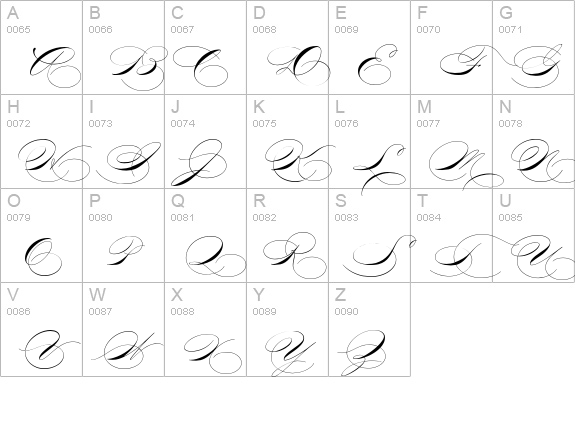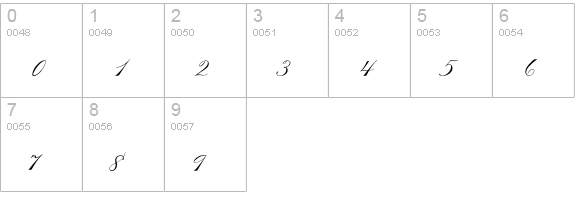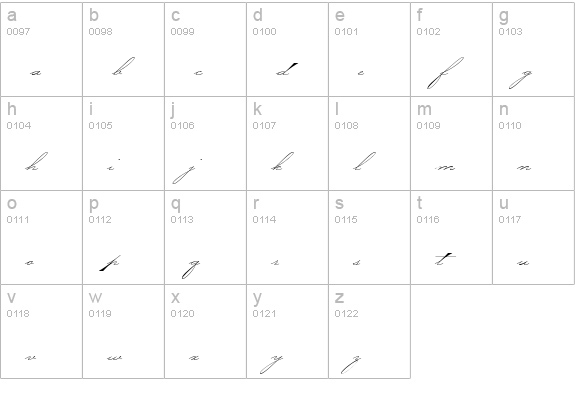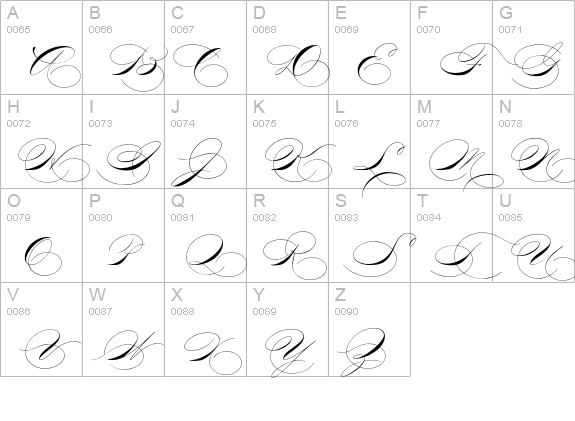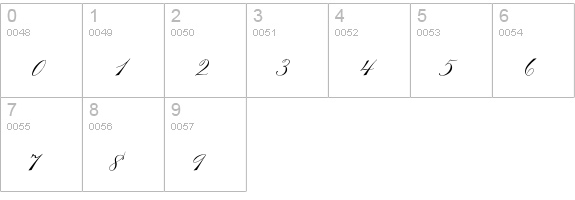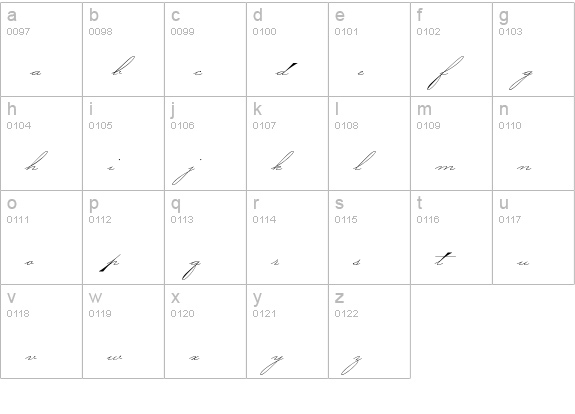
P22ZanerOne Font Details
P22ZanerOne font is a classic and elegant typeface that exudes sophistication and grace. Inspired by the timeless beauty of calligraphy, this font features delicate and flowing strokes that add a touch of elegance to any project. With its refined design and timeless appeal, P22ZanerOne font is perfect for creating stunning invitations, elegant logos, and stylish branding materials. What makes P22ZanerOne font even more appealing is that it is available for free download at FontsMarket.com. This means you can easily access this exquisite typeface and use it in your projects without any cost. Whether you are a designer looking to elevate your creations or a business owner seeking a sophisticated branding solution, P22ZanerOne font is the perfect choice. Download it now and add a touch of timeless elegance to your designs.